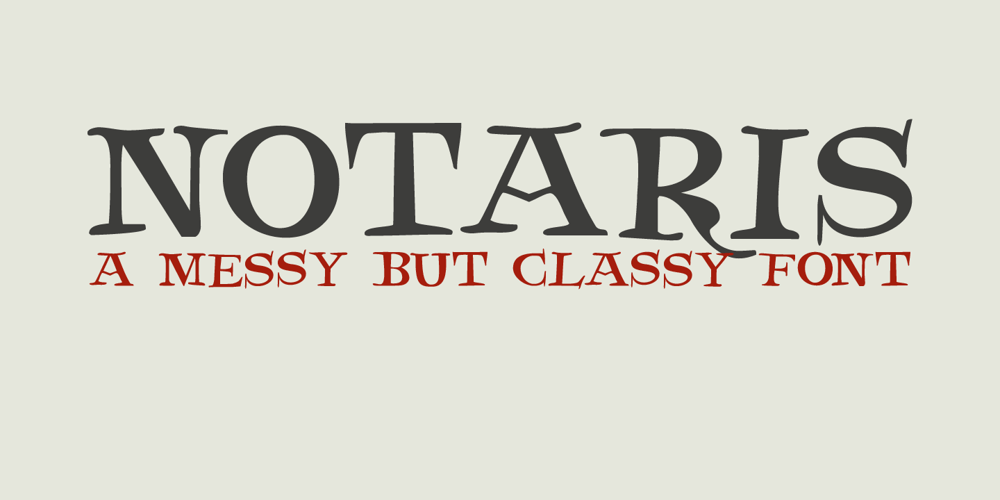
Notaris
Notaris font
Notaris Font Family was designed by David Kerkhoff and published by Hanoded. Notaris contains 1 styles and family package options. Notaris (‘Notary’ in Dutch) is a hand-drawn, all caps didone-style typeface. It is a little rough, a little uneven, but lively and elegant as well. Comes with an abundance of diacritics and, lo and behold, some end-ligatures as well.